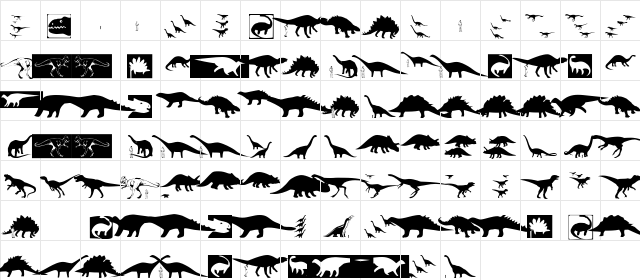
AIDinoSaurier Regular Free Font
AIDinoSaurier Regular
Design Context for AIDinoSaurier
AIDinoSaurier is a composed and adaptable typeface that performs quietly and consistently across a wide range of design contexts.